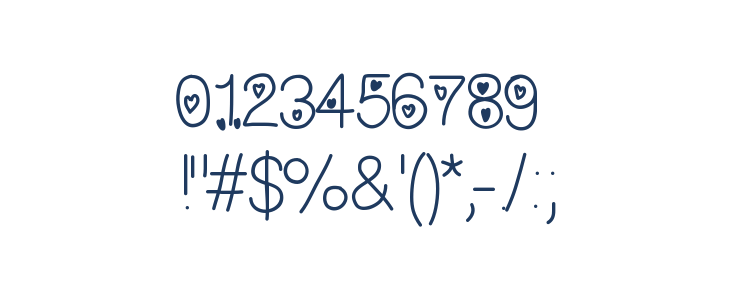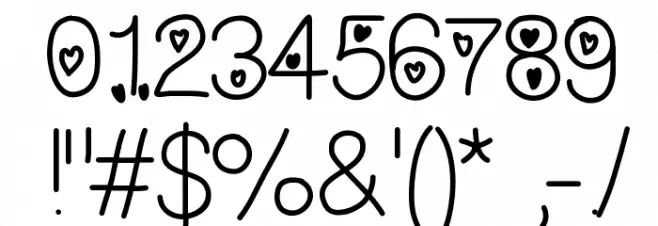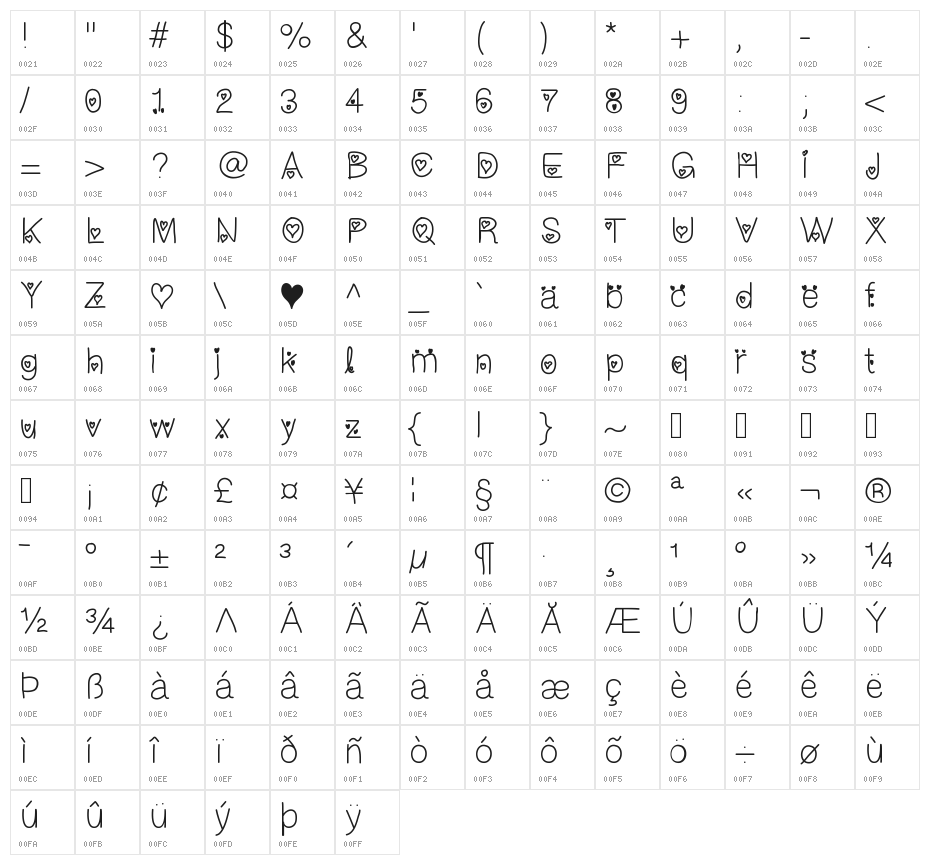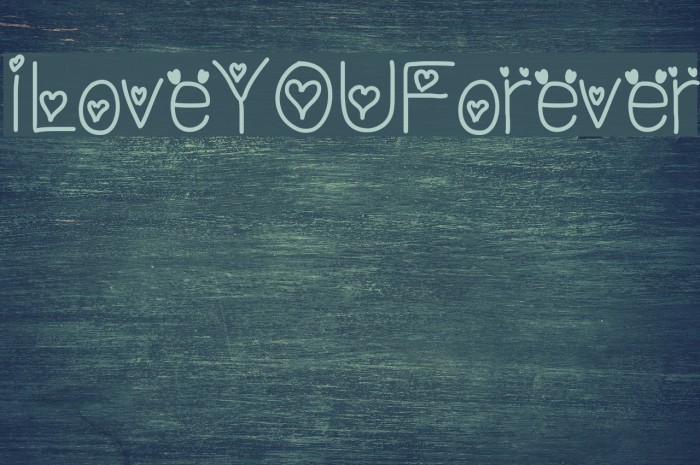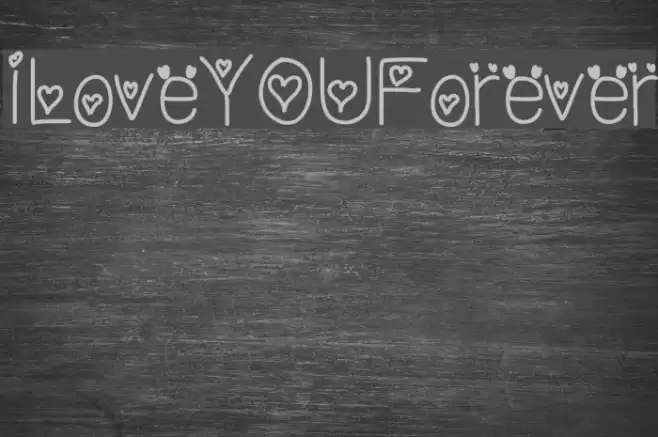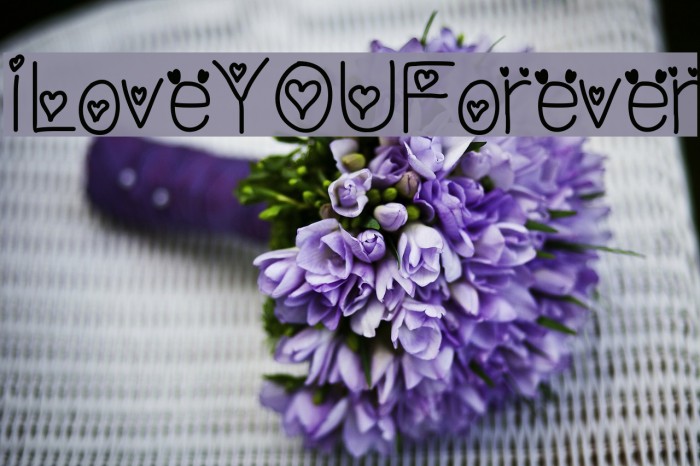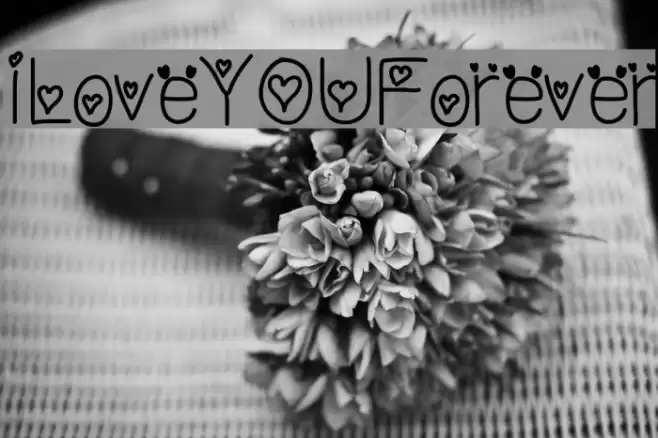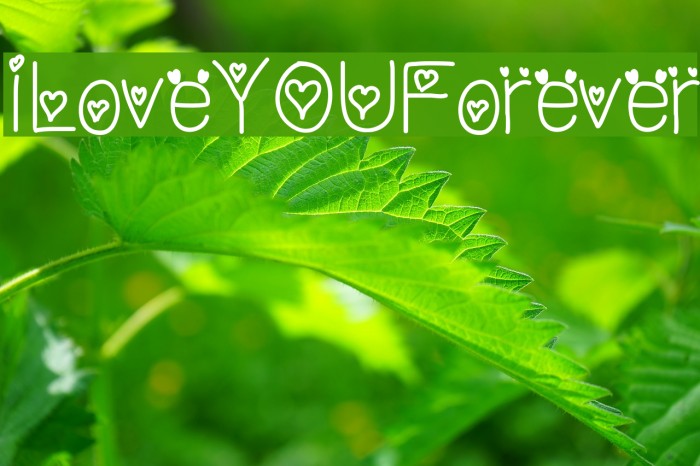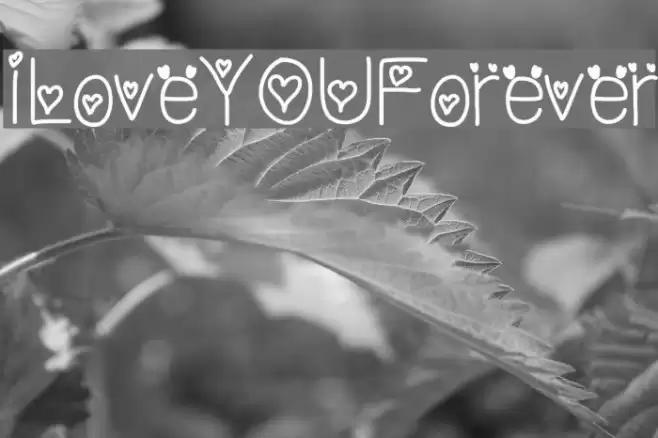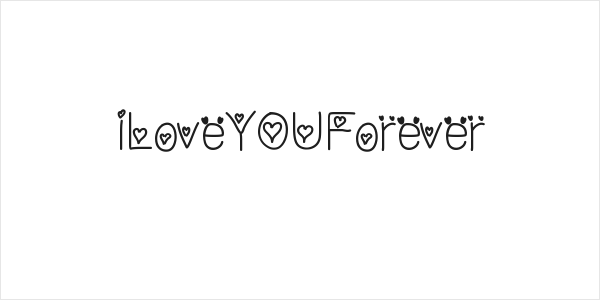
ILoveYOUForever Font
ILoveYOUForever Description
This playful and whimsical font features heart motifs integrated into each character, creating a charming and romantic aesthetic. The letters are rounded and smooth, with consistent stroke widths that give it a cohesive look. The heart shapes are cleverly placed, often replacing dots or embellishing the ends of strokes, adding a unique flair. This font is perfect for projects that require a touch of love and creativity, such as wedding invitations, Valentine's Day cards, or any design that aims to convey affection and warmth. Its decorative nature makes it stand out, while the clear and legible letterforms ensure readability.
| Overall Style | Playful and Romantic |
| Use Case | Headlines, Logos, Decorative Text |
| Proposed Projects | Ideal for wedding invitations, Valentine's Day cards, love-themed posters, and playful branding. |